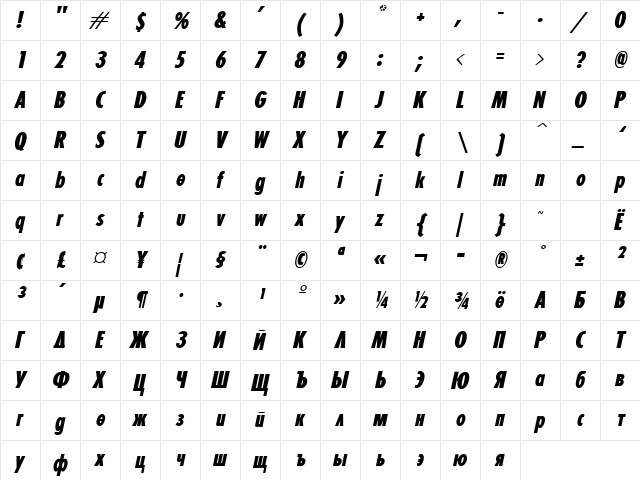
Fortuna Extra Condensed Bold Italic Font Preview
Design Context for Fortuna Extra Condensed Typeface
Fortuna Extra Condensed takes a measured approach to typography — its balanced proportions and neutral character make it a reliable workhorse for both digital and print work. Its italic angle brings a sense of urgency and motion to the letterforms. Its bold stroke weight gives it real presence on the page. The condensed width makes it efficient for tight spaces without sacrificing legibility.
Pro Tip: Try Fortuna Extra Condensed for annotation and caption copy alongside an upright companion — the contrast in angle creates a dynamic but ordered typographic system.